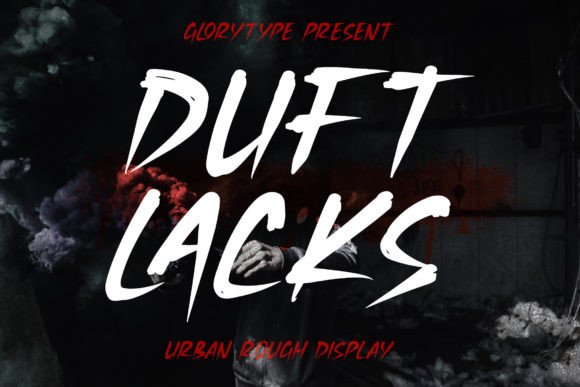
Duft Lacks – A Versatile Script Font for Creative Projects
Duft Lacks is a distinctive script font that blends elegance with a touch of urban grit, making it an appealing choice for designers and creators across various industries. Its unique aesthetic offers a balance between sophistication and casual energy, suitable for both professional and personal projects. Whether you're working on branding, packaging, or custom merchandise, Duft Lacks provides a fresh and adaptable option that can elevate your visual identity.
What Makes Duft Lacks Stand Out
Duft Lacks distinguishes itself through its handcrafted appearance, which gives it a warm, organic feel. Unlike many digital fonts that can appear too uniform or artificial, this typeface retains a sense of human imperfection, adding character to any design. The strokes vary slightly in weight and flow, creating a dynamic visual rhythm that feels more authentic than rigidly structured alternatives.
The font’s structure is reminiscent of rough-hewn typography often seen in graffiti or street art, yet it maintains enough refinement to be used in more polished contexts. This duality makes it particularly useful for projects that aim to bridge the gap between casual and formal aesthetics. From t-shirt graphics to book covers, Duft Lacks adapts without losing its core identity.
Key Characteristics and Practical Value
One of the most notable features of Duft Lacks is its readability, despite its stylized form. While it may not be ideal for long blocks of text, it shines in headlines, logos, and short phrases where visual impact is key. The font includes a range of ligatures and alternate characters, allowing for greater customization and ensuring that each use feels intentional and unique.
Duft Lacks also offers versatility in terms of application. It works well in both black-and-white and color formats, and its bold strokes make it visible at smaller sizes without sacrificing clarity. This flexibility is especially valuable for designers who need a single font to serve multiple purposes across different media.
Real-World Performance and Usability
In practice, Duft Lacks performs reliably in a variety of design scenarios. For instance, when used in logo creation, it can convey a sense of creativity and individuality while still maintaining professionalism. Its rough texture pairs well with minimalist backgrounds, allowing the font to stand out without overwhelming the composition.
For product packaging, Duft Lacks adds a tactile, artisanal quality that can differentiate a brand from competitors. On mugs, posters, or shopping bags, it brings a personal touch that resonates with audiences looking for something unique. In digital environments, such as website headers or social media graphics, it can help create a cohesive and memorable visual language.
However, it’s important to note that the font’s strength lies in its visual appeal rather than its technical complexity. Users should be mindful of spacing and alignment to ensure that the final output looks clean and intentional. While the font is generally easy to work with, some adjustments may be necessary depending on the specific project requirements.
Who Can Benefit from Duft Lacks
Duft Lacks is particularly well-suited for creatives who want to infuse their work with a sense of authenticity and personality. Entrepreneurs launching new brands, independent artists, and small businesses seeking a distinctive visual identity will find it valuable. Its ability to blend casual and refined elements makes it a good fit for industries such as fashion, food, and lifestyle branding.
Designers working on homeware, stationery, or promotional materials can also benefit from using Duft Lacks. Its adaptability allows it to complement a wide range of styles, from rustic to modern. For example, it could be used on name cards for a boutique event or as a watermark on photography portfolios to add a signature touch.
Additionally, educators and publishers looking to create engaging content for students or readers might find it useful for headings or chapter titles. Its expressive nature can draw attention and enhance the overall reading experience without being distracting.
Considerations and Limitations
While Duft Lacks is a strong choice for many applications, it may not be the best fit for every project. Its informal style might not align with the tone of more traditional or corporate designs. In such cases, a more structured font would likely be more appropriate.
Finally, while the font’s irregularities contribute to its charm, they can sometimes make it challenging to pair with other typefaces. Designers should experiment with combinations to find a balance that enhances the overall composition without clashing.
Whether you’re looking to add a distinctive touch to your next project or explore new typographic possibilities, Duft Lacks is worth considering. Its ability to adapt to different contexts while maintaining a clear visual identity ensures that it remains a valuable tool in any designer’s toolkit.